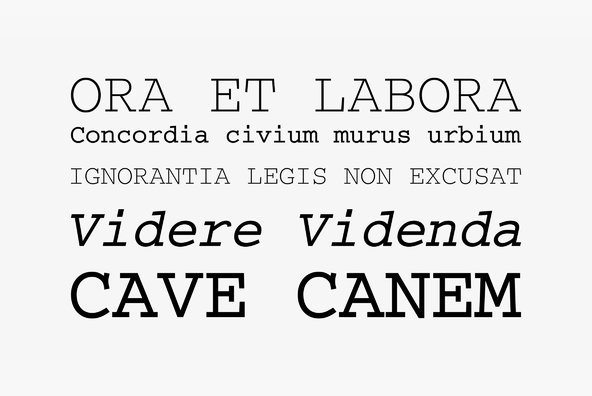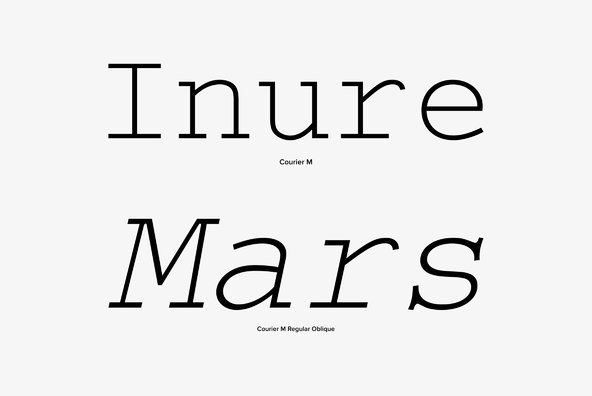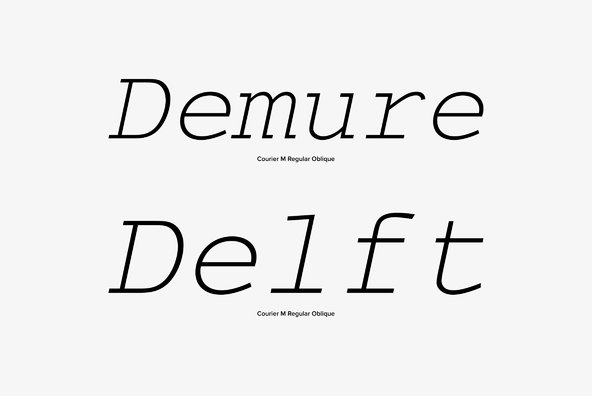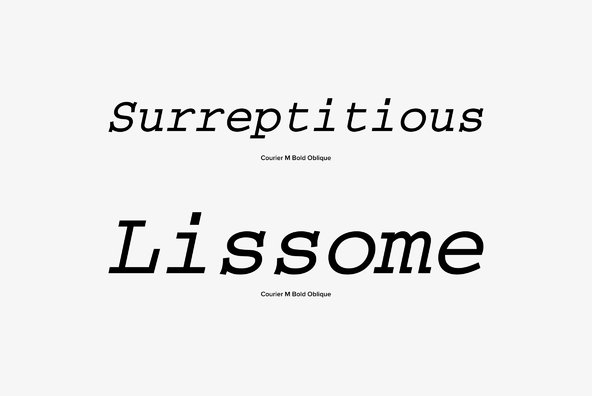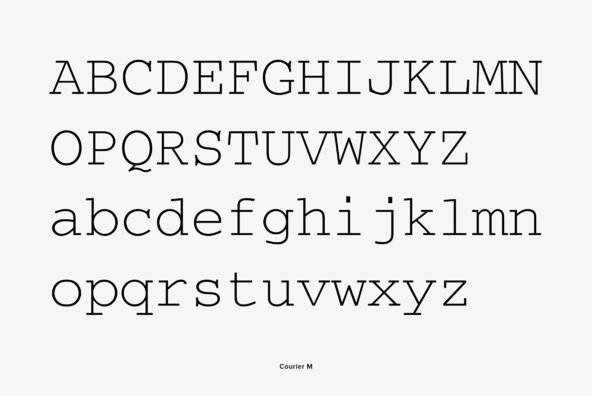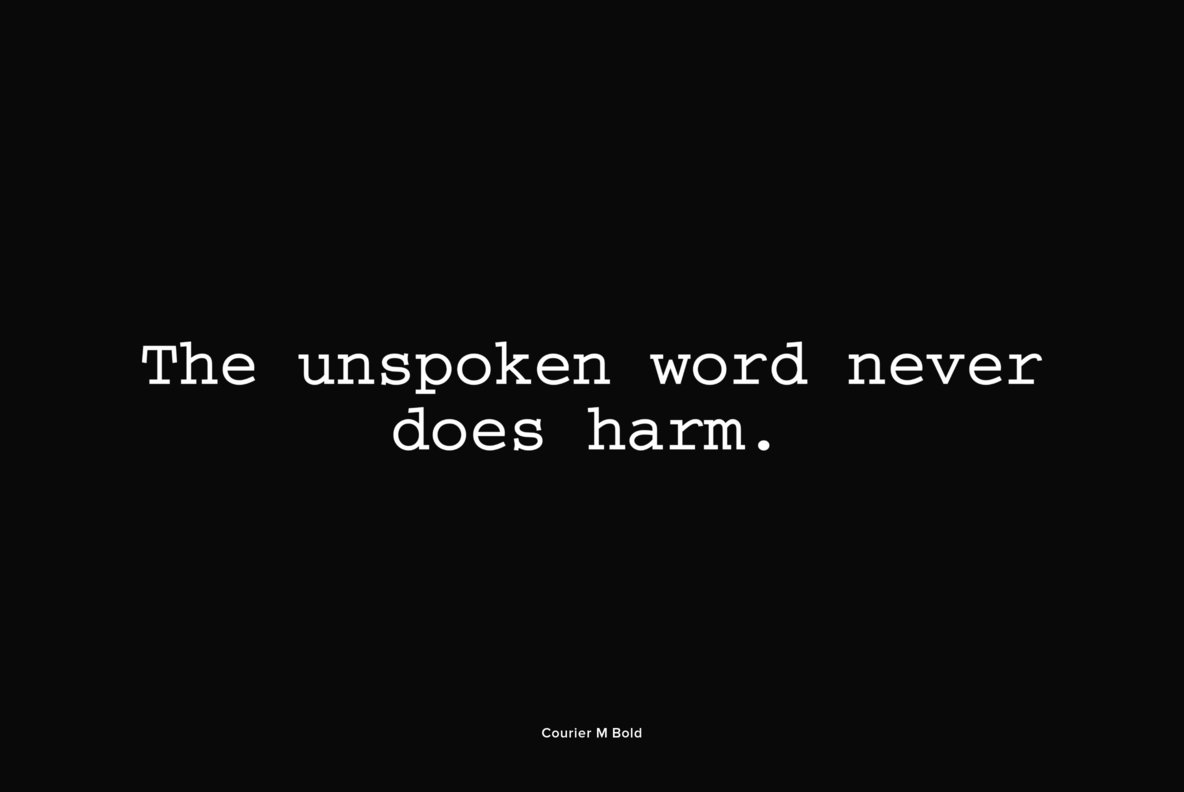
Courier M
Designed by Howard Kettler in 1956, Courier M is a typewriter serif font release by URW. Contains language support for West, East, Turkish, Baltic, and Romanian.